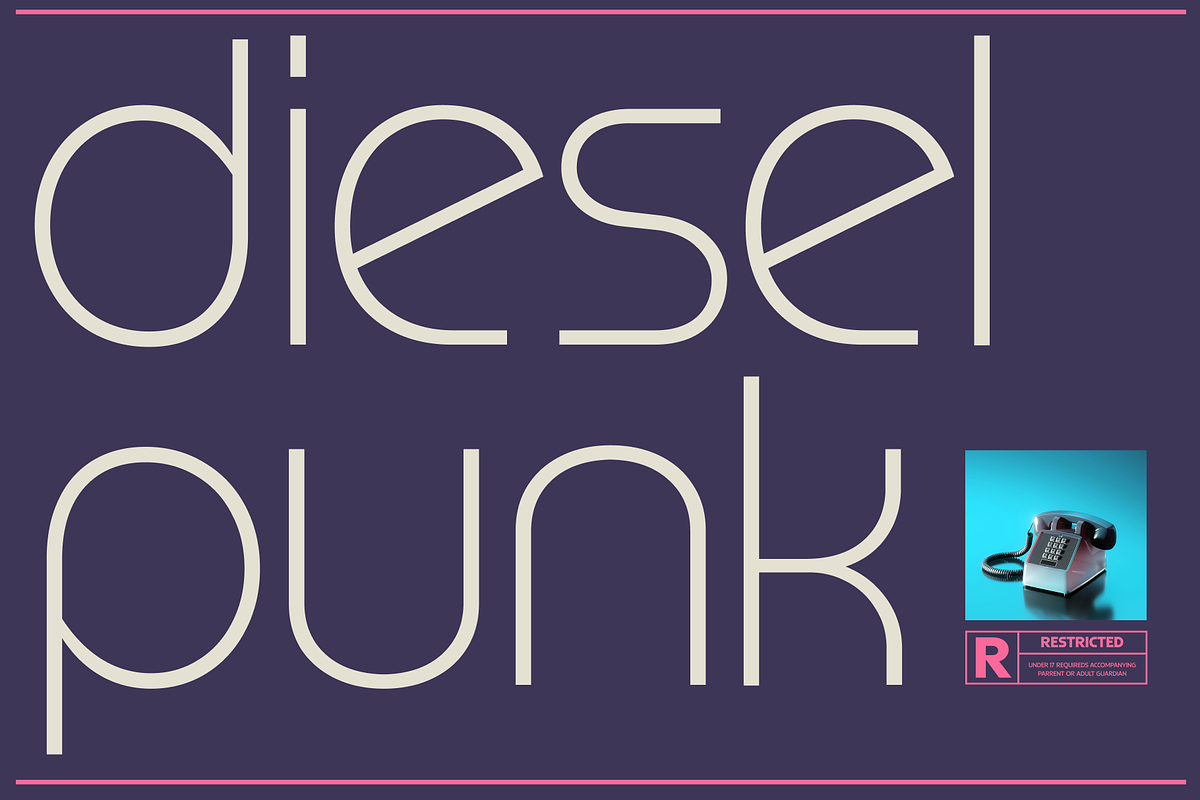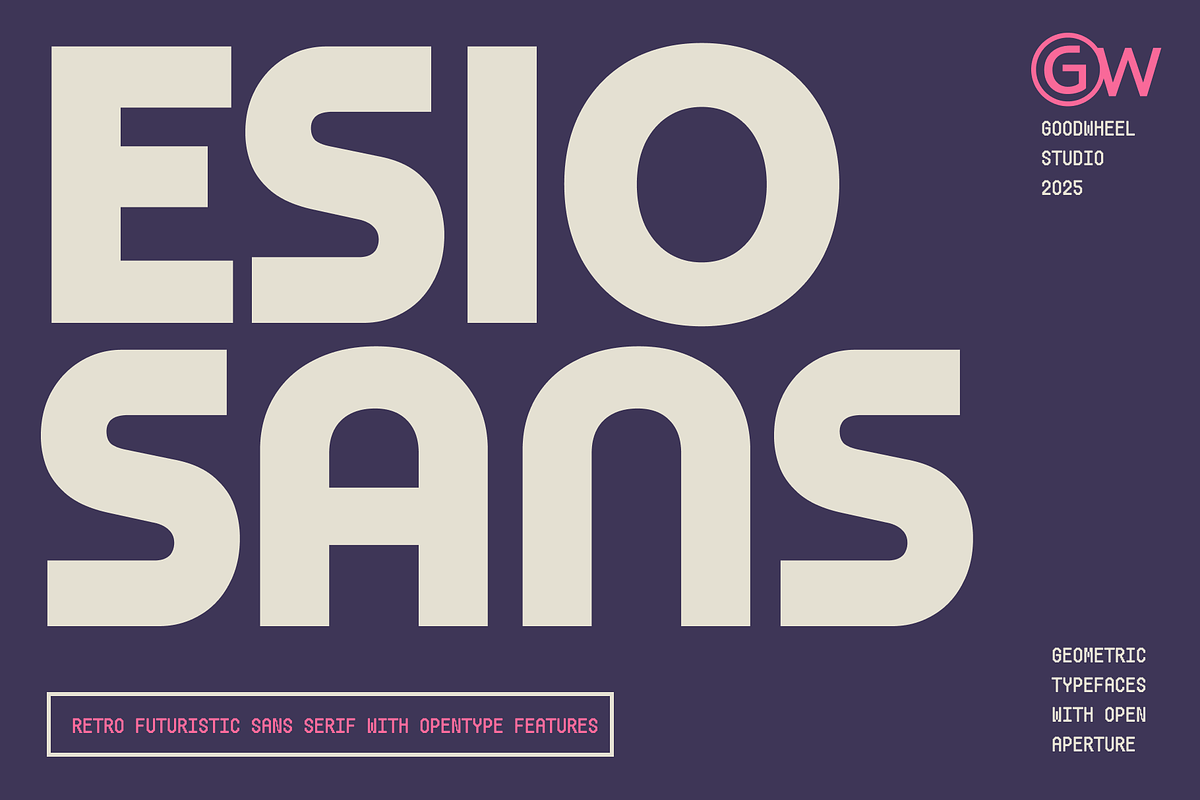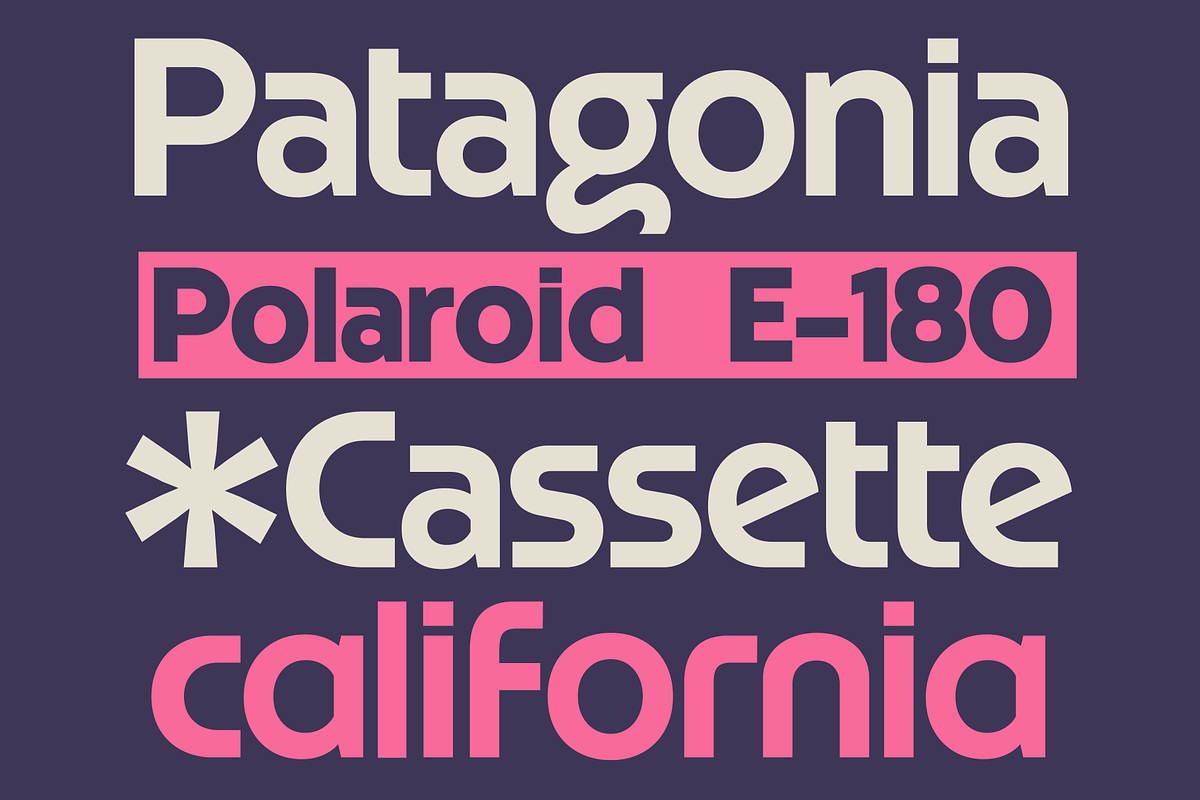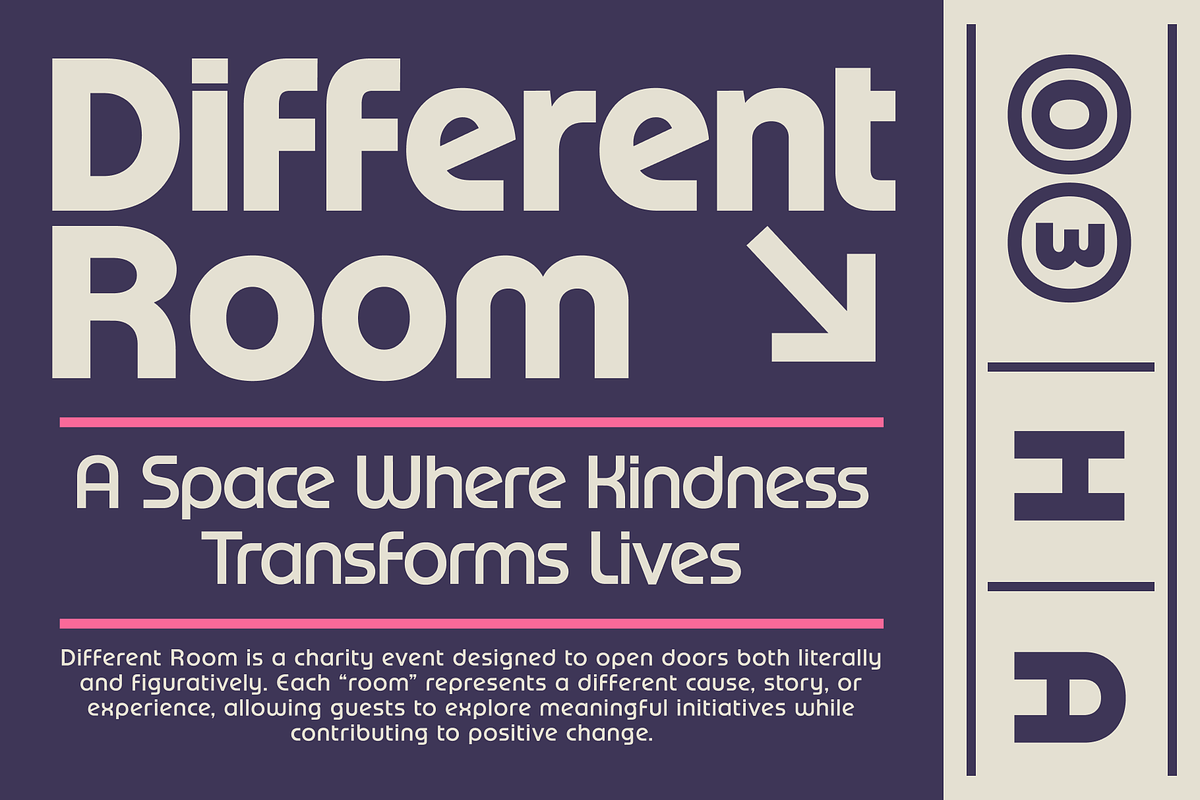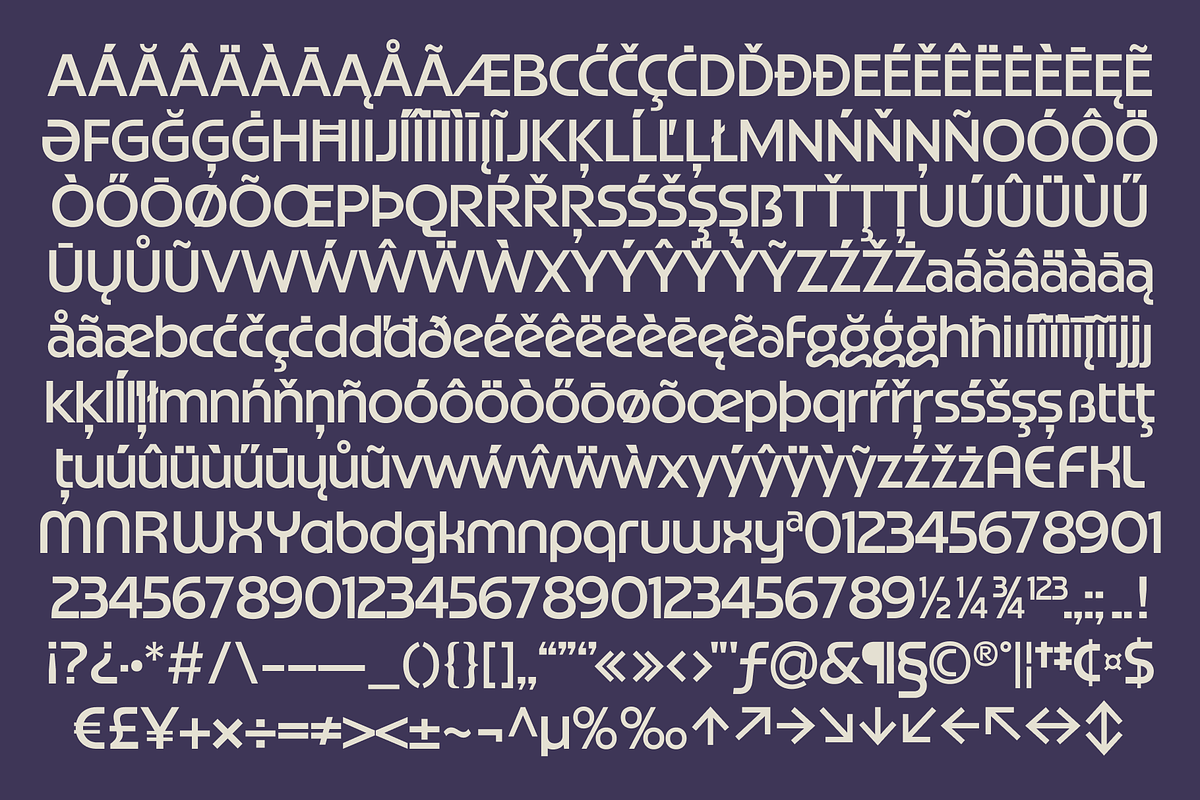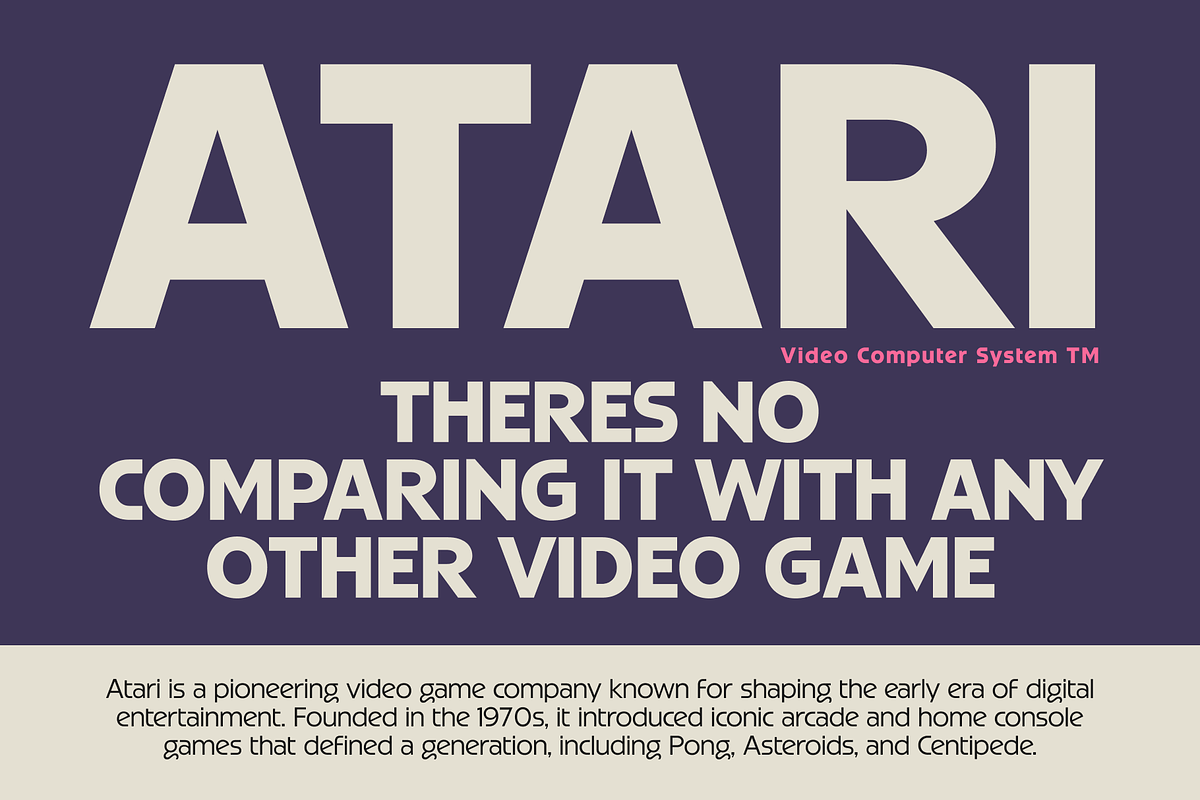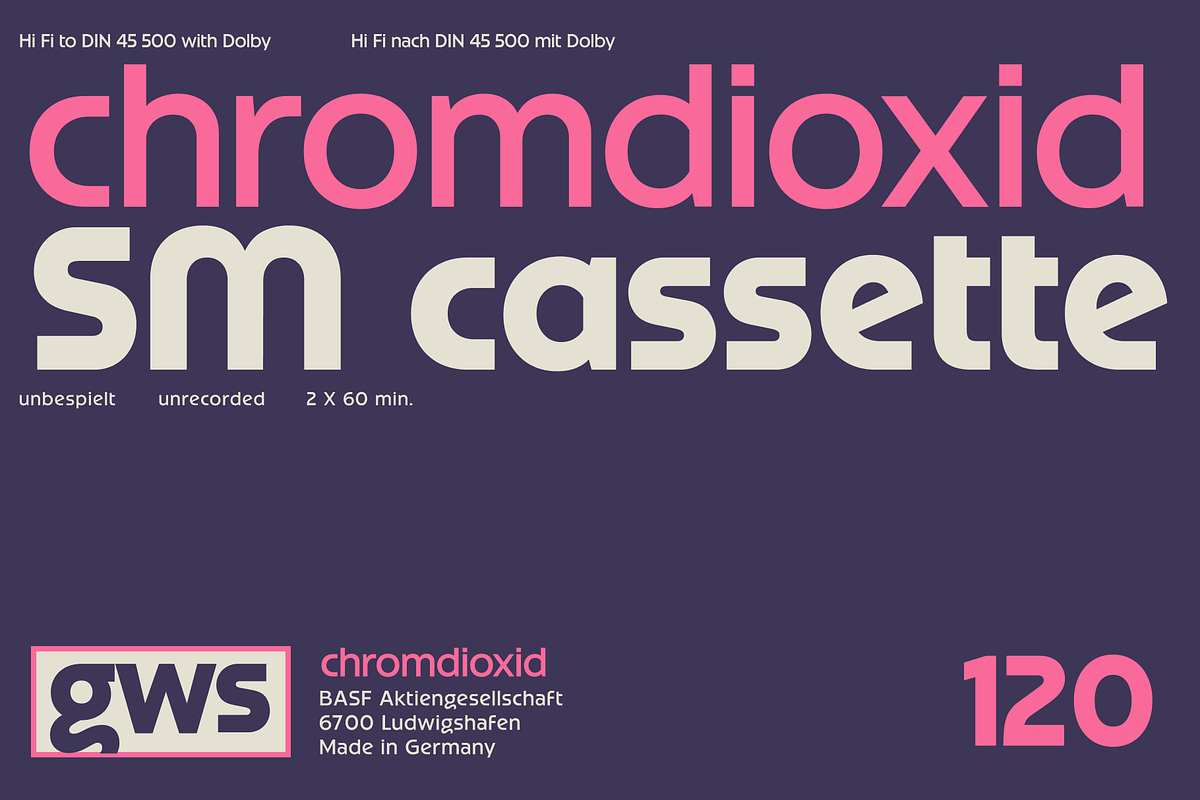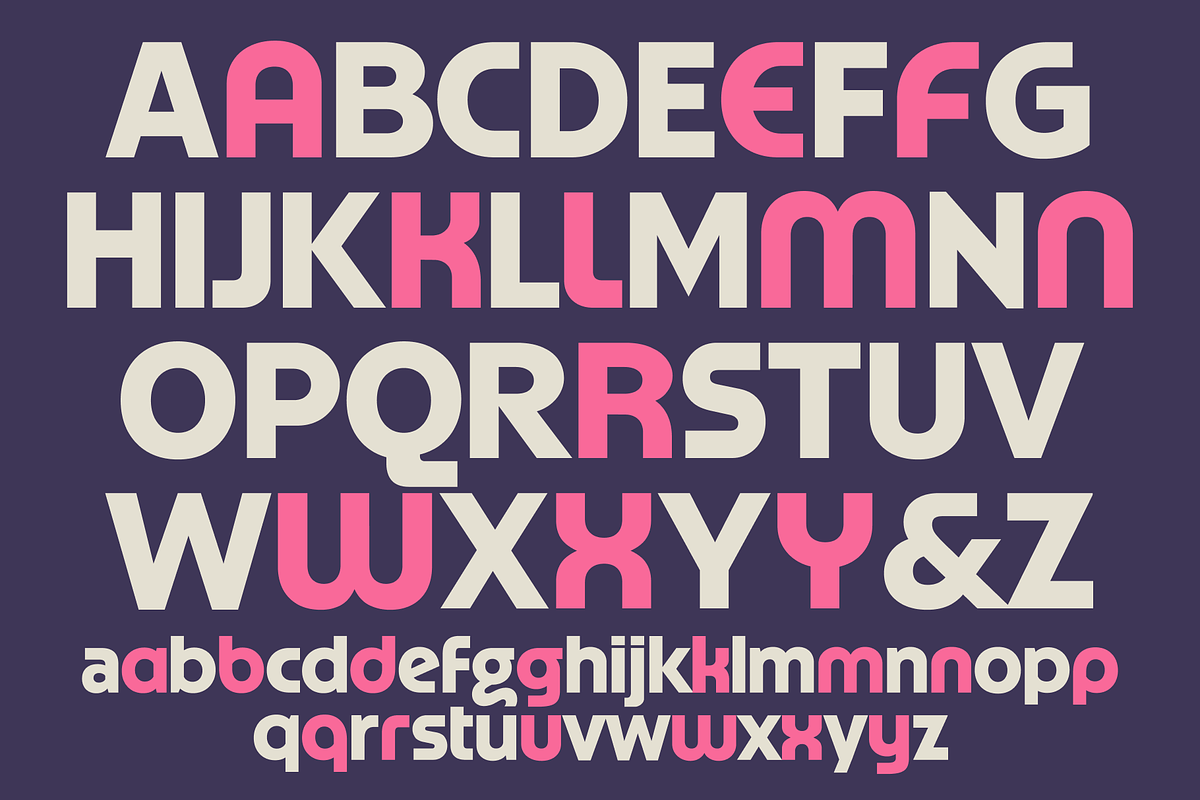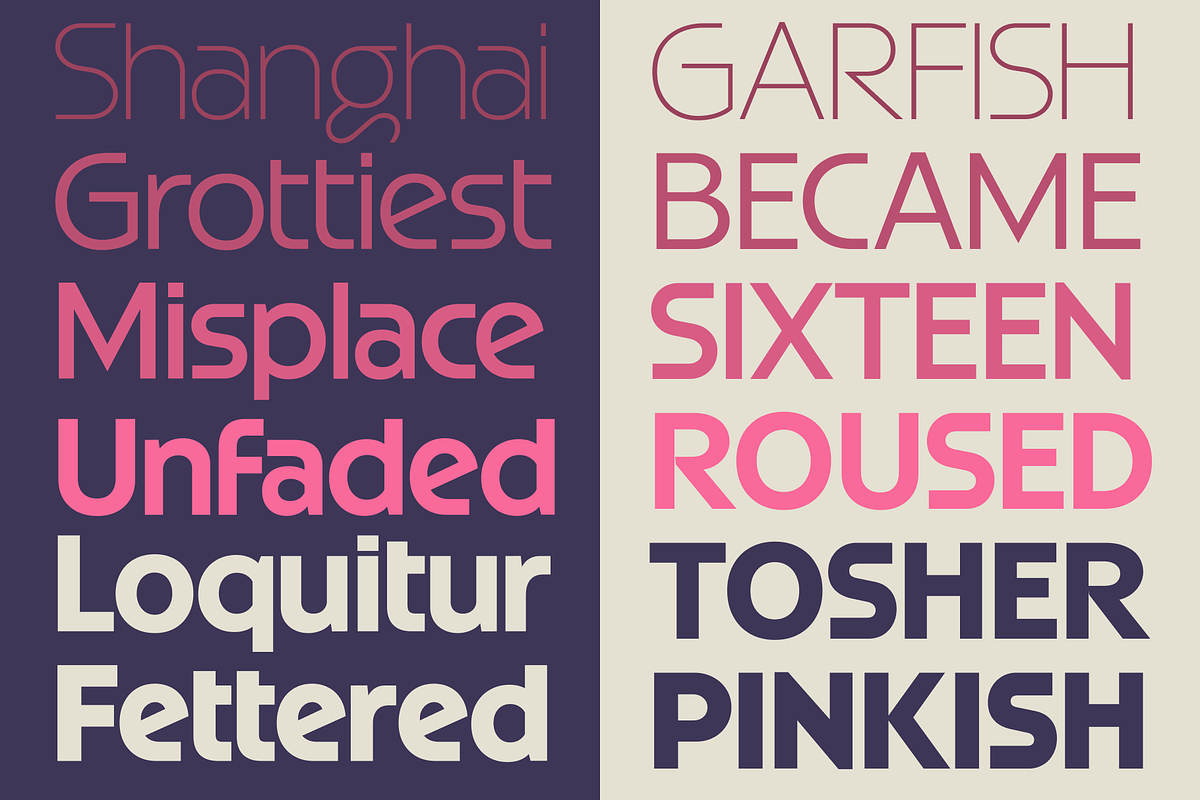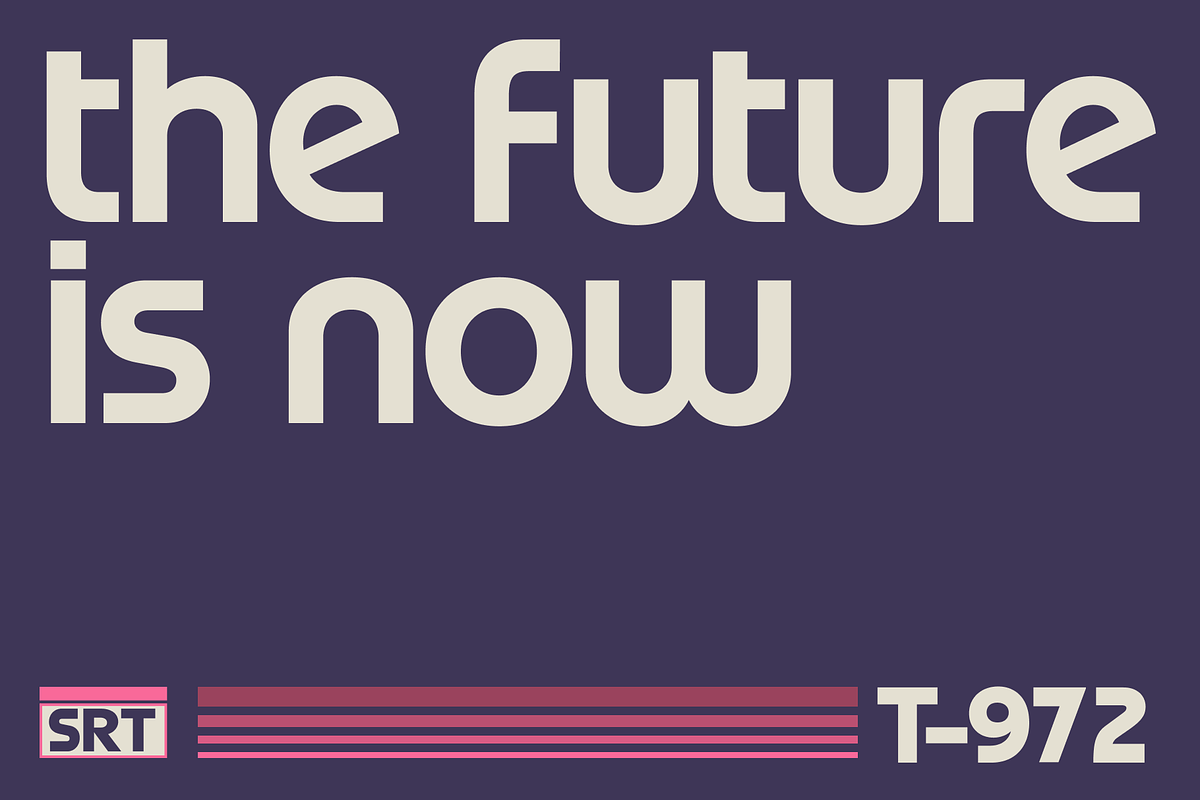
GW Esio Sans
Esio Sans is a geometric sans serif typeface that embodies a retro-futuristic spirit, characterized by its open apertures, regular proportions, and sleek, modern shapes. Its substantial yet approachable forms create a striking visual impact while ensuring excellent readability. Offered six weight: extra light, light, regular, medium, semi bold, bold. this typeface is perfect for creating impactful headlines, branding, posters, and editorial designs that require a blend of futuristic aesthetics and human warmth. It also comes equipped with a set of OpenType features, including Circled Figures, Black Circled Figures, No Junction Figures, Big Asterisk, Ligature, Tabular Lining, and support 90 languages.